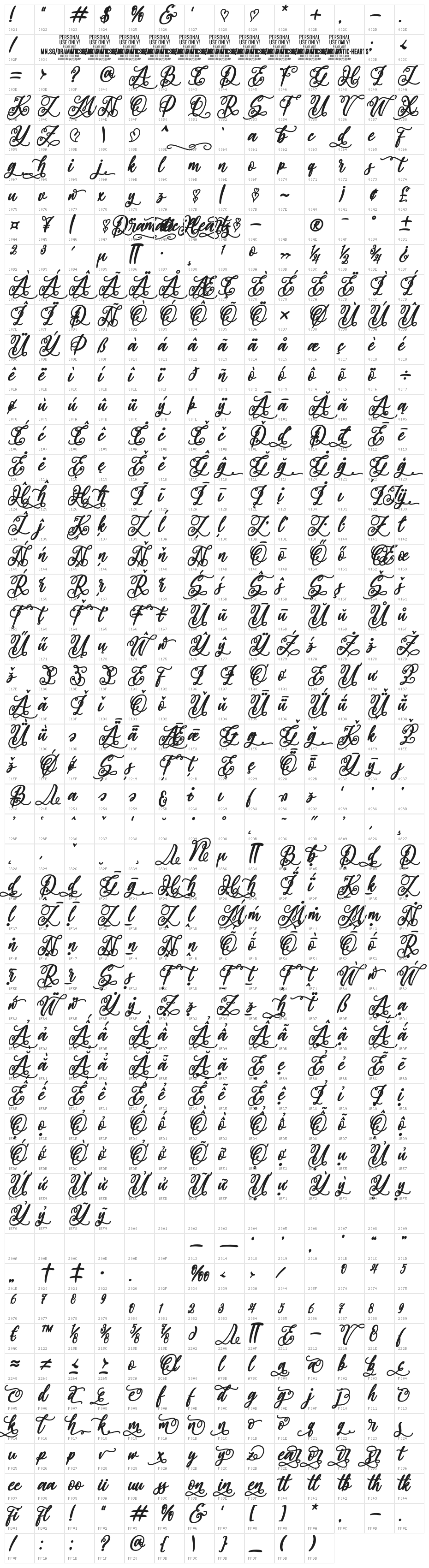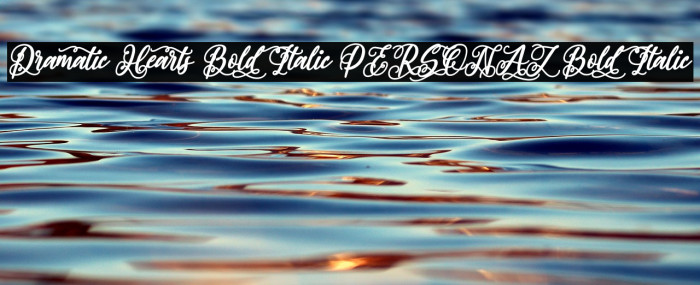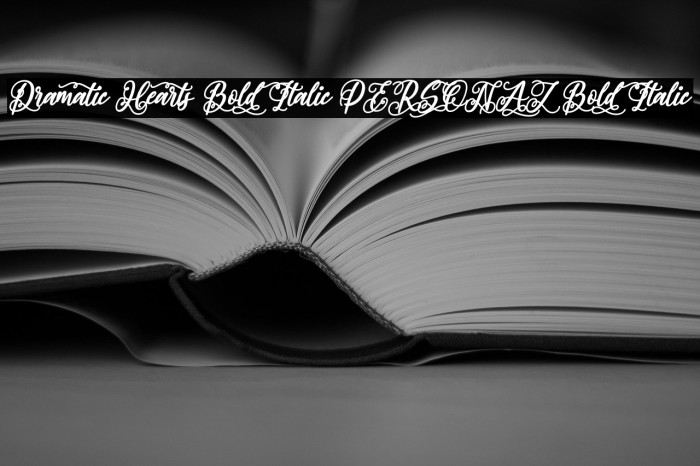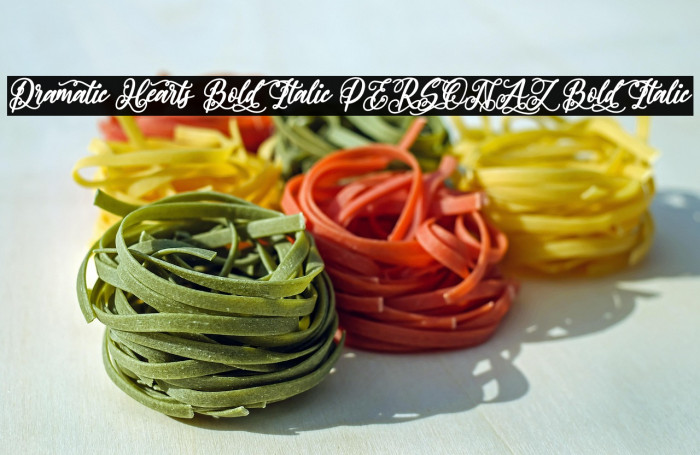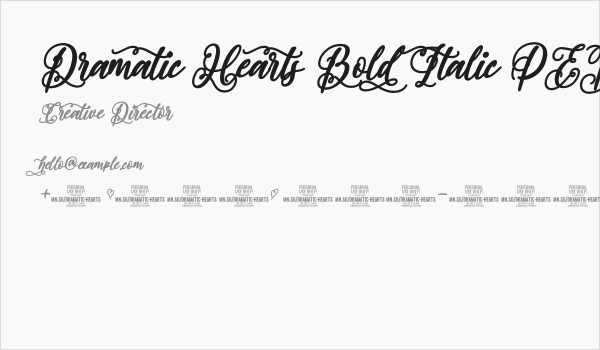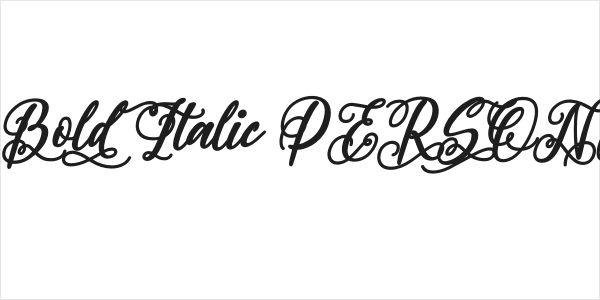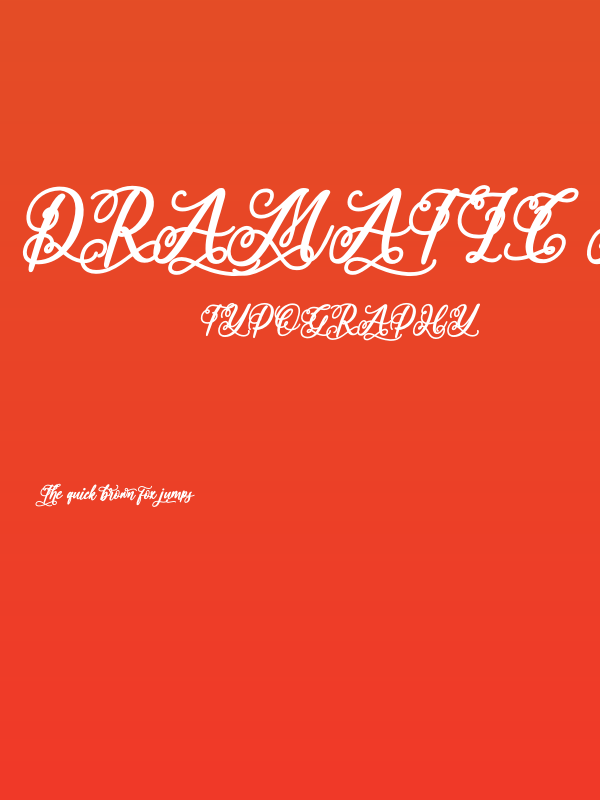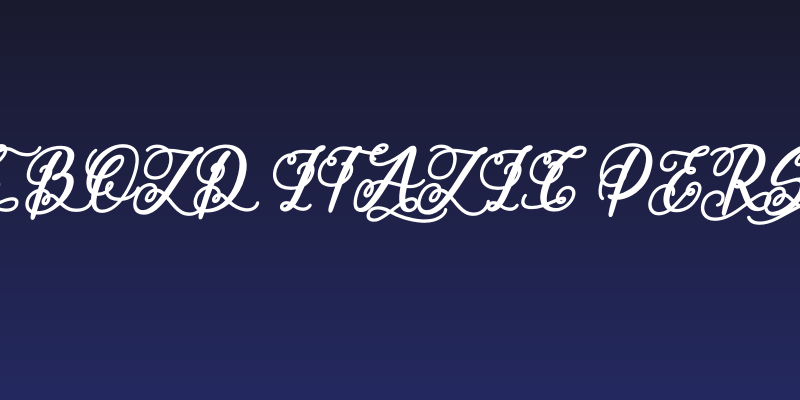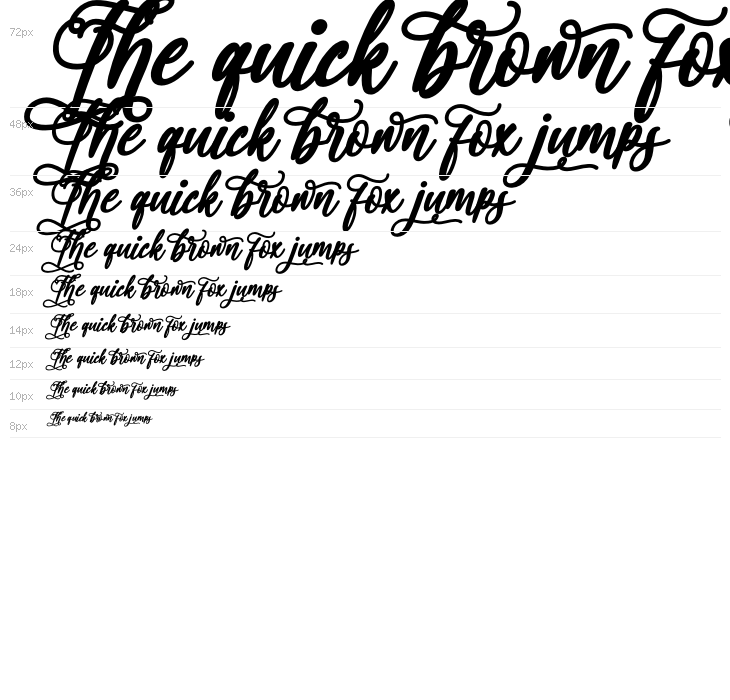
Dramatic Hearts Bold Italic PERSONAL Bold Italic Font
Dramatic Hearts Bold Italic PERSONAL Bold Italic Description
This font features an elaborate and decorative script style, characterized by its bold and italicized form. The letters are interconnected with dramatic flourishes and swashes, giving it a romantic and artistic appearance. The uppercase letters are particularly ornate, with loops and curls that extend beyond the baseline and cap height. The lowercase letters maintain a consistent flow, enhancing the script's fluidity. The numerals and special characters are equally embellished, maintaining the overall aesthetic. This font is ideal for creating eye-catching designs that require a touch of elegance and drama.
| Proposed Projects | Ideal for wedding invitations, greeting cards, branding, and decorative posters. |